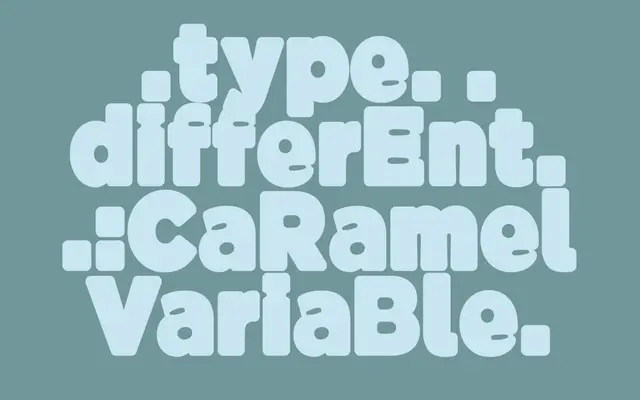
BD Caramel
Type Different · 2023
A variable display typeface reworking the 2014 BD Qualle, with a variable axis that animates letterforms into fluid, liquid-like shapes suited to food and cookery contexts.
Released in 2023, BD Caramel is a variable remake of BD Qualle, offering two named styles, Regular and Bubble, with a variable axis that shifts letterforms between them. The fluid, rounded character of the type makes it well suited to titling in cookbooks, packaging or any context where a liquid or confectionery mood is required. Latin coverage spans Western and Northern European languages including French, German, Dutch and the Scandinavian languages.
BD Caramel is a variable display typeface with fluid, liquid-like letterforms intended for titling use, making it a decorative display type rather than a conventional script or serif.